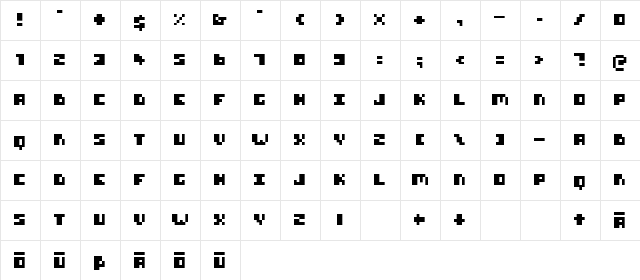
HIWEBT Regular
Design Context for HIWEBT Typeface
HIWEBT takes a measured approach to typography — its balanced proportions and neutral character make it a reliable workhorse for both digital and print work.